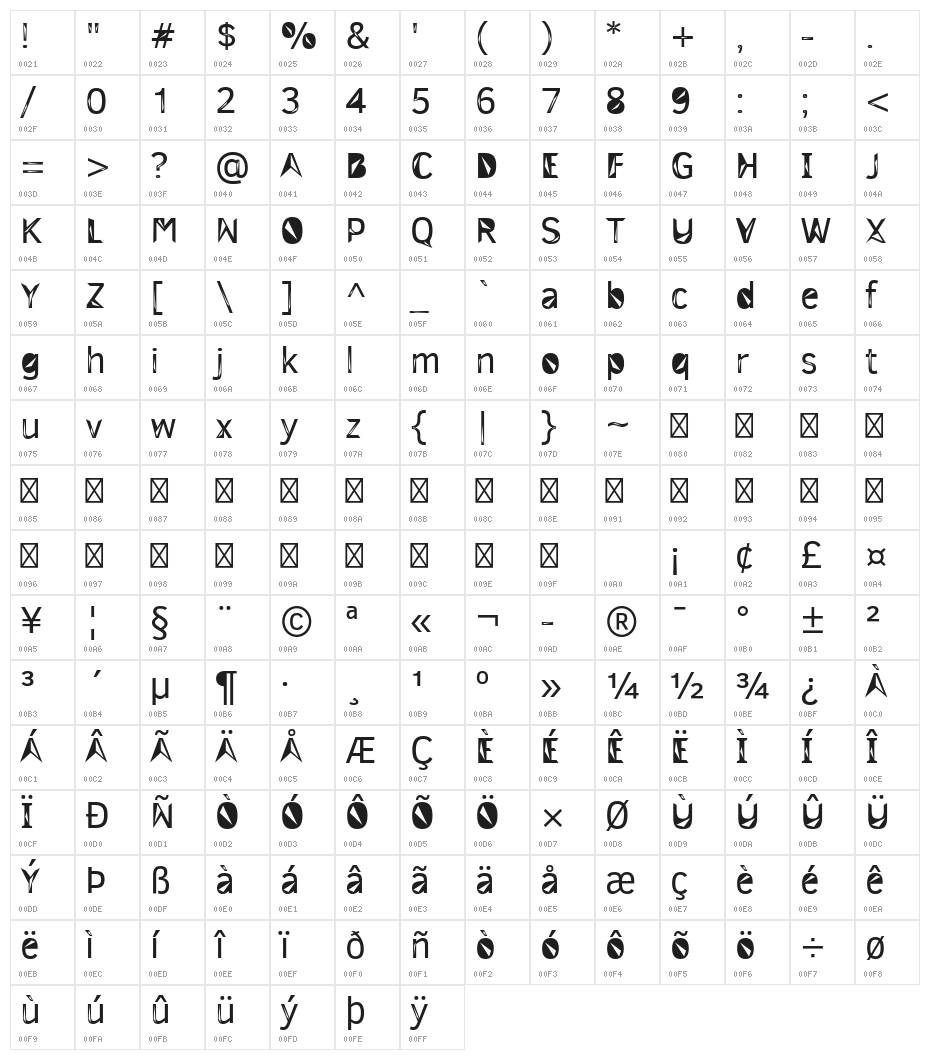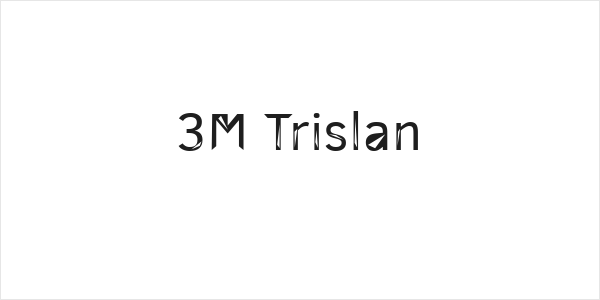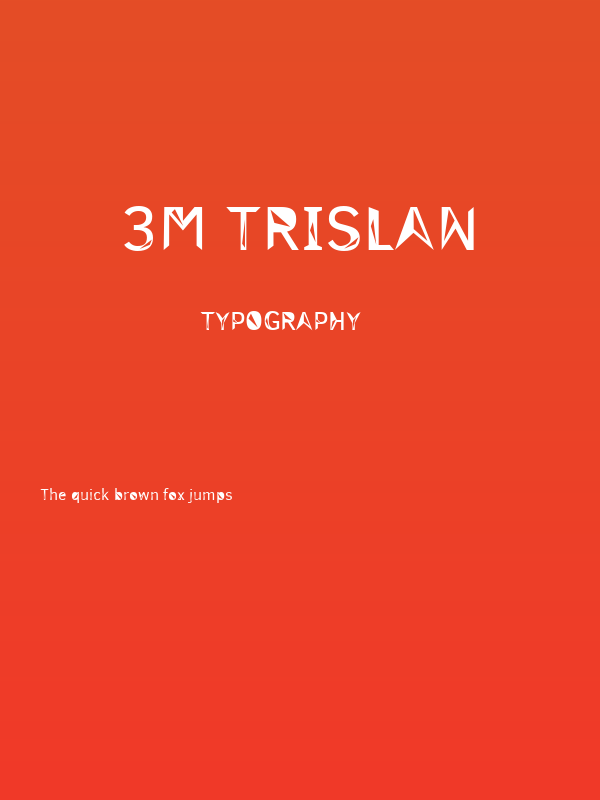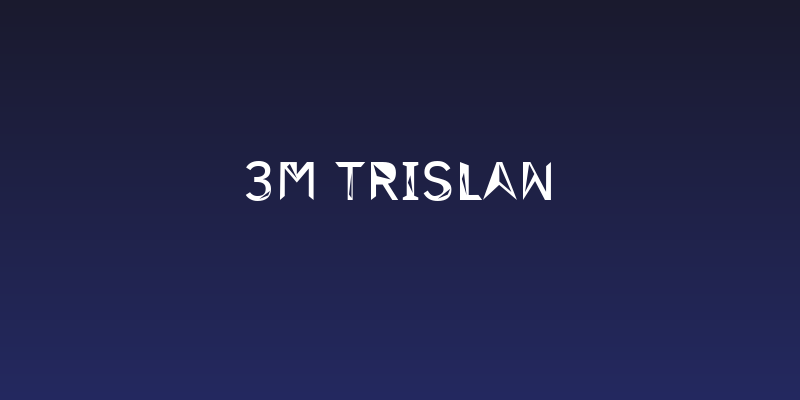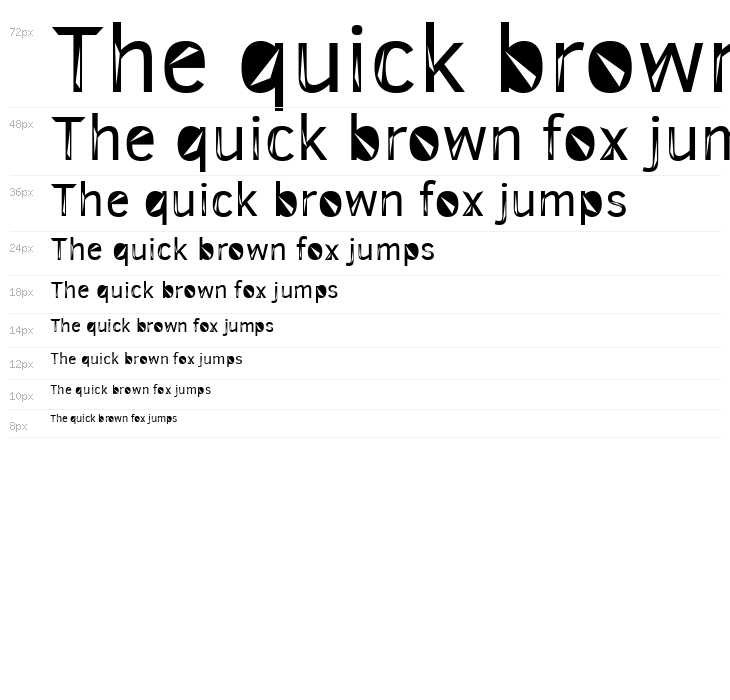
3M Trislan Font
3M Trislan Description
This font features a bold and dynamic design with a distinct geometric style. Each character is crafted with sharp angles and unique cutouts, creating a sense of movement and energy. The uppercase letters are particularly striking, with a strong presence that commands attention. The lowercase letters maintain the same geometric theme, offering a cohesive look across the alphabet. Numbers and special characters are designed with the same attention to detail, ensuring consistency throughout. This font's modern and edgy appearance makes it suitable for projects that require a bold statement.
| Proposed Projects | Ideal for branding, posters, headlines, and any design needing a modern, edgy touch. |